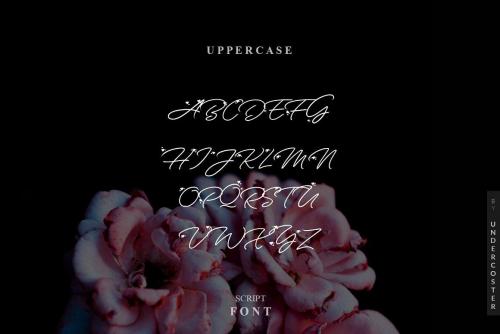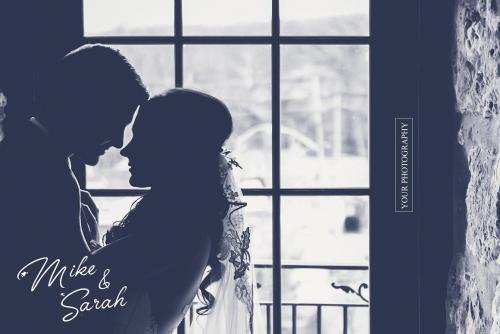
Hi designer! If you are needing a touch of casual chic calligraphy for your designs, this font was created for you! A modern calligraphy font. Introducing Anggrek font. Anggrek is hand lettered font with multilingual support. Is ideal for t-shirts, magazines, phone covers, social media, restaurant menus, greeting cards, invitations, weddings, headers and many more.